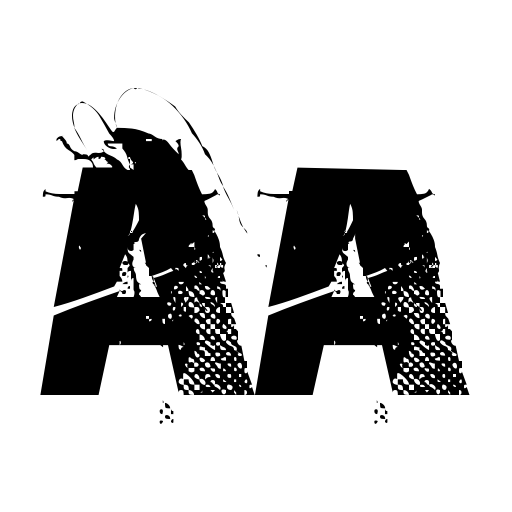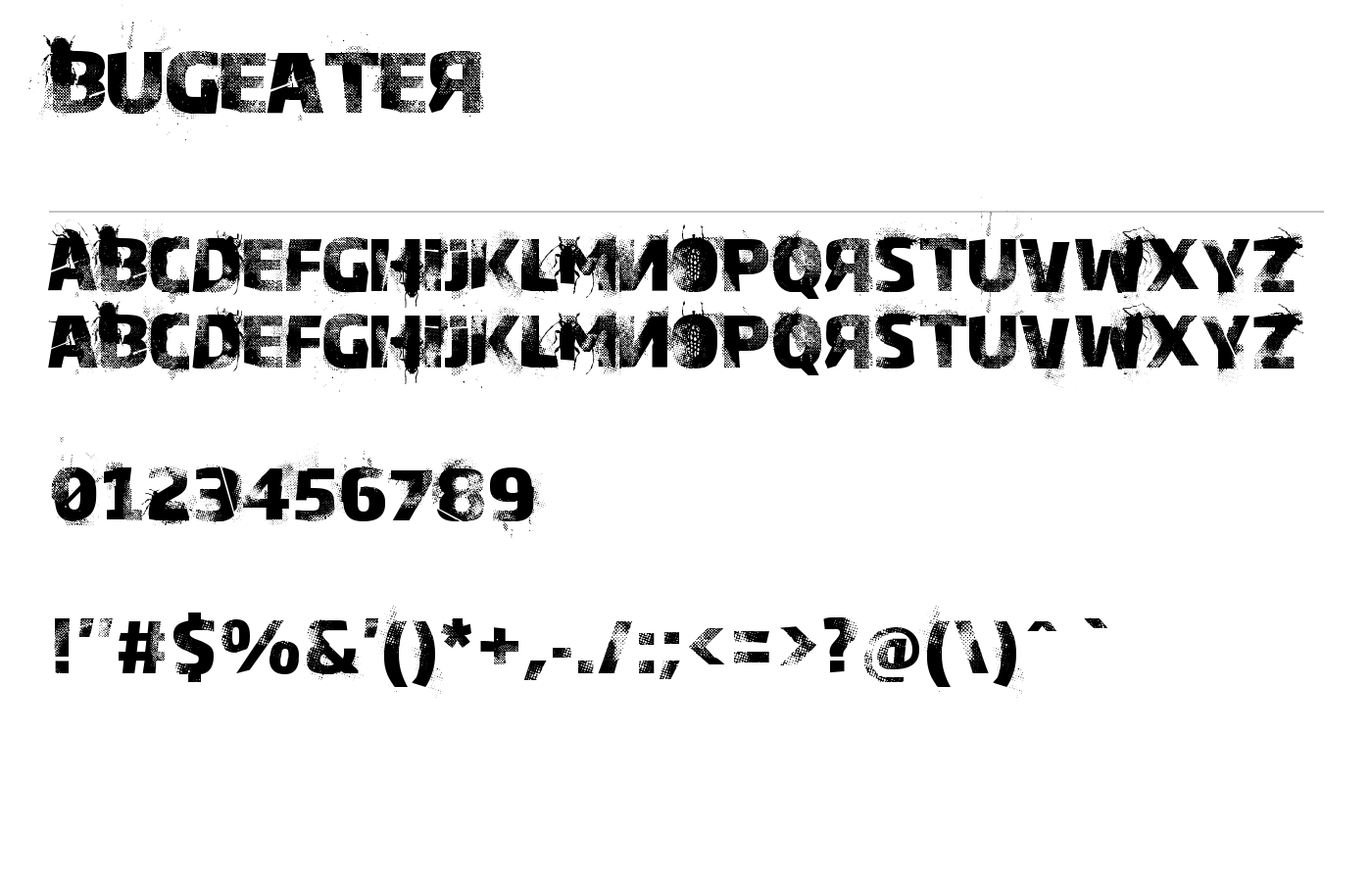
Bugeater is a bold, distressed sans serif font featuring a rough, textured look that adds a gritty, vintage vibe. With its thick weight and wide spacing, it works well for eye-catching headlines, posters, and edgy branding where a raw, industrial feel is desired. This font is perfect for designs that want to convey toughness and authenticity with a worn, urban style.
Bugeater Font
About Bugeater Font